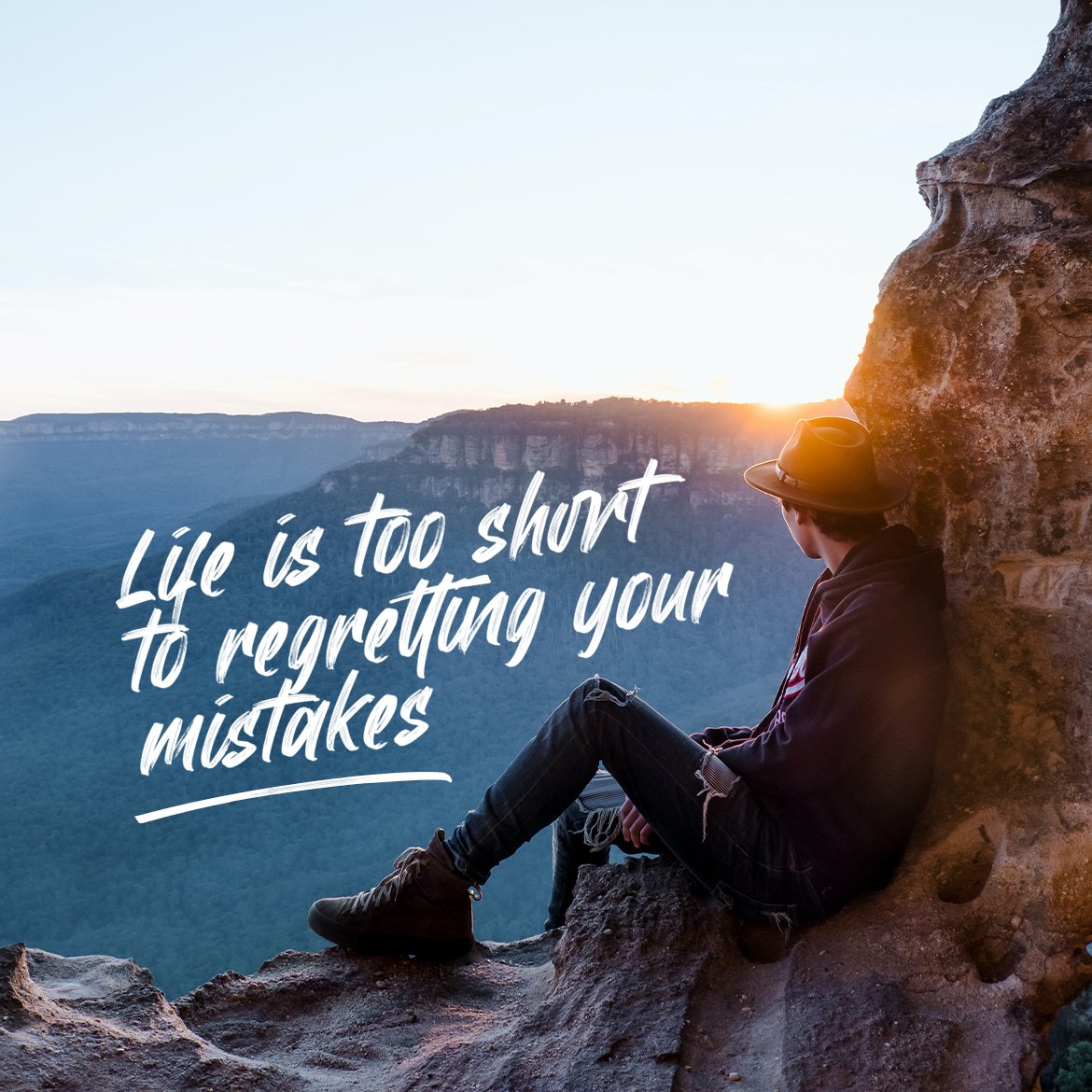
Thorny Rock – Handwritten Brush Font
Introducing “Thorny Rock,” a handwritten brush font that captures the rugged beauty and untamed energy of nature’s edge. Perfect for designers, illustrators, and creatives who want to infuse their projects with a sense of wildness and authenticity, Thorny Rock offers a raw and expressive aesthetic.